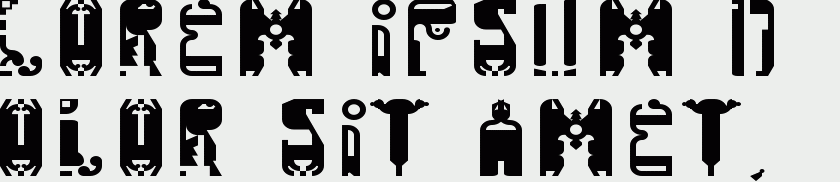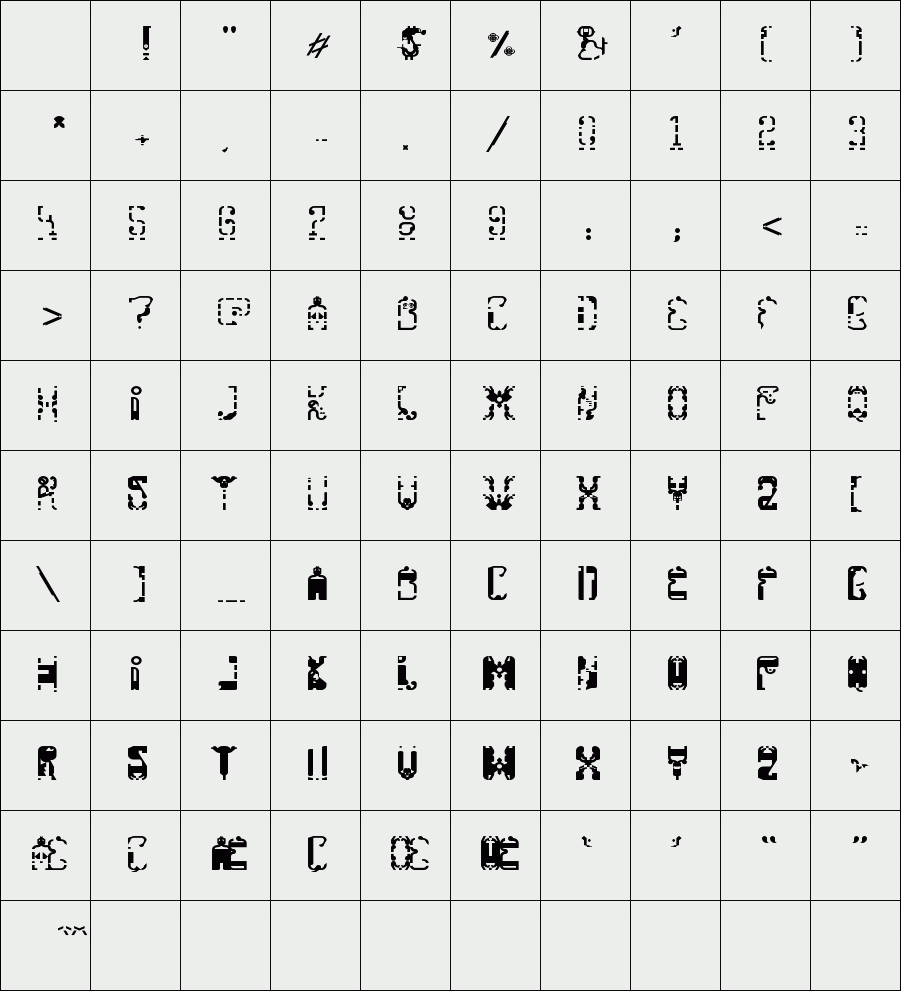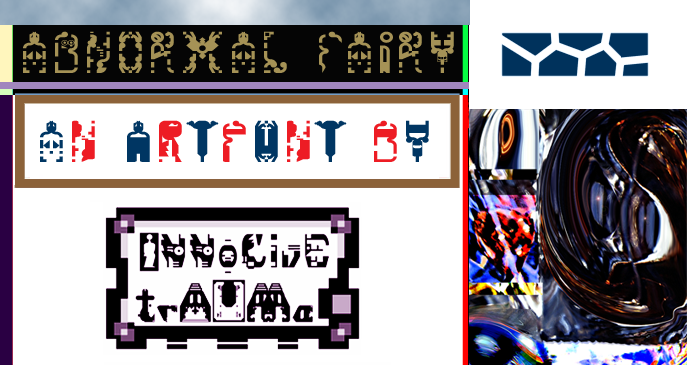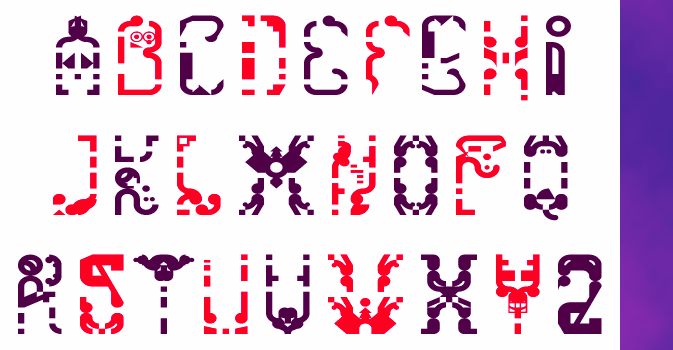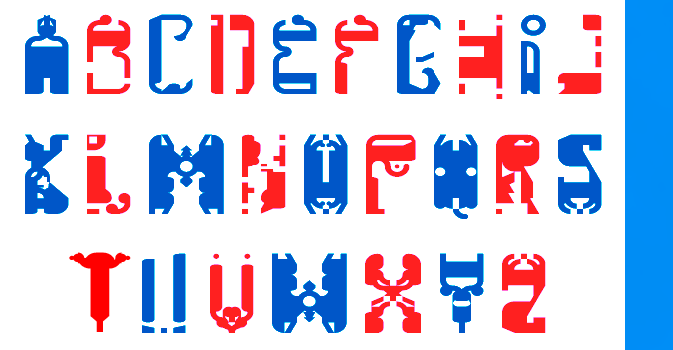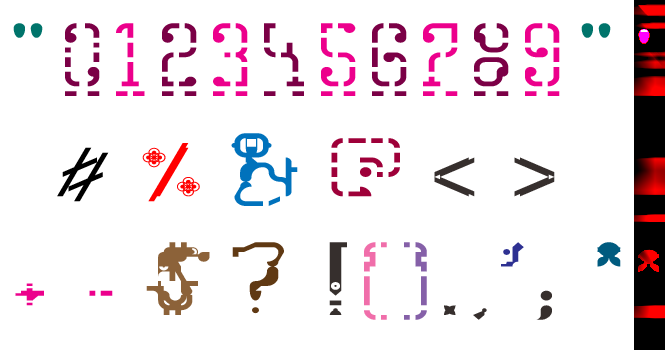
trAUMa 63 / Abnormal Fairy
"Abnormal Fairy", like all the "trAUMa" series, works at the frontier between Art & Type Design, Figuration & Abstraction, each font is a comprehensive world in which every glyph is a "living" entity. But put together they can produce your messages in the most accurate way.